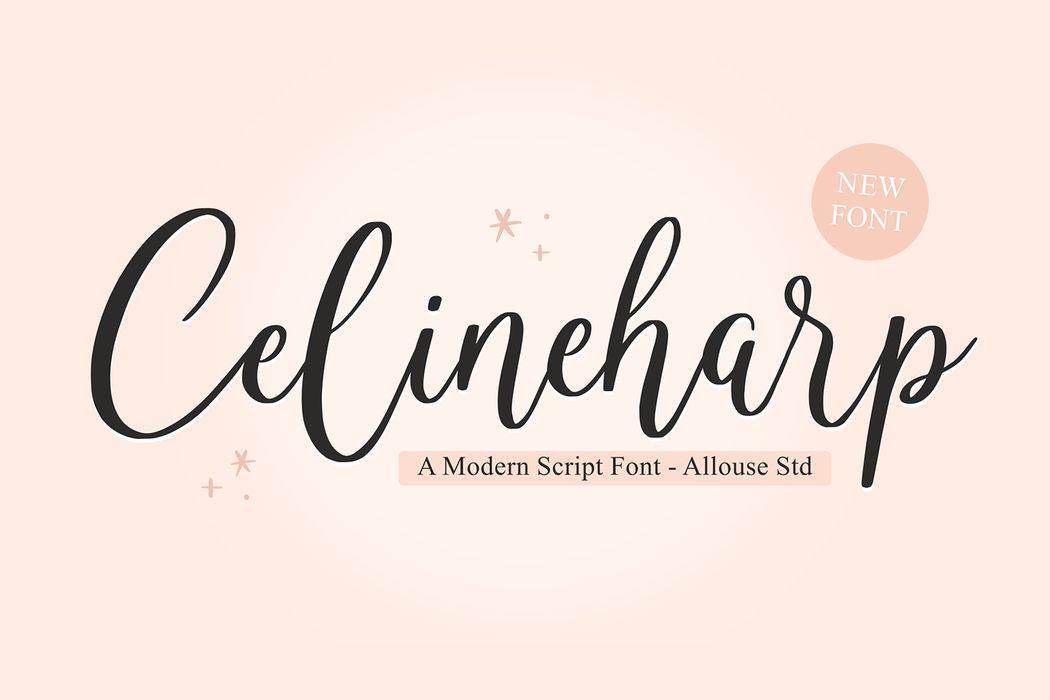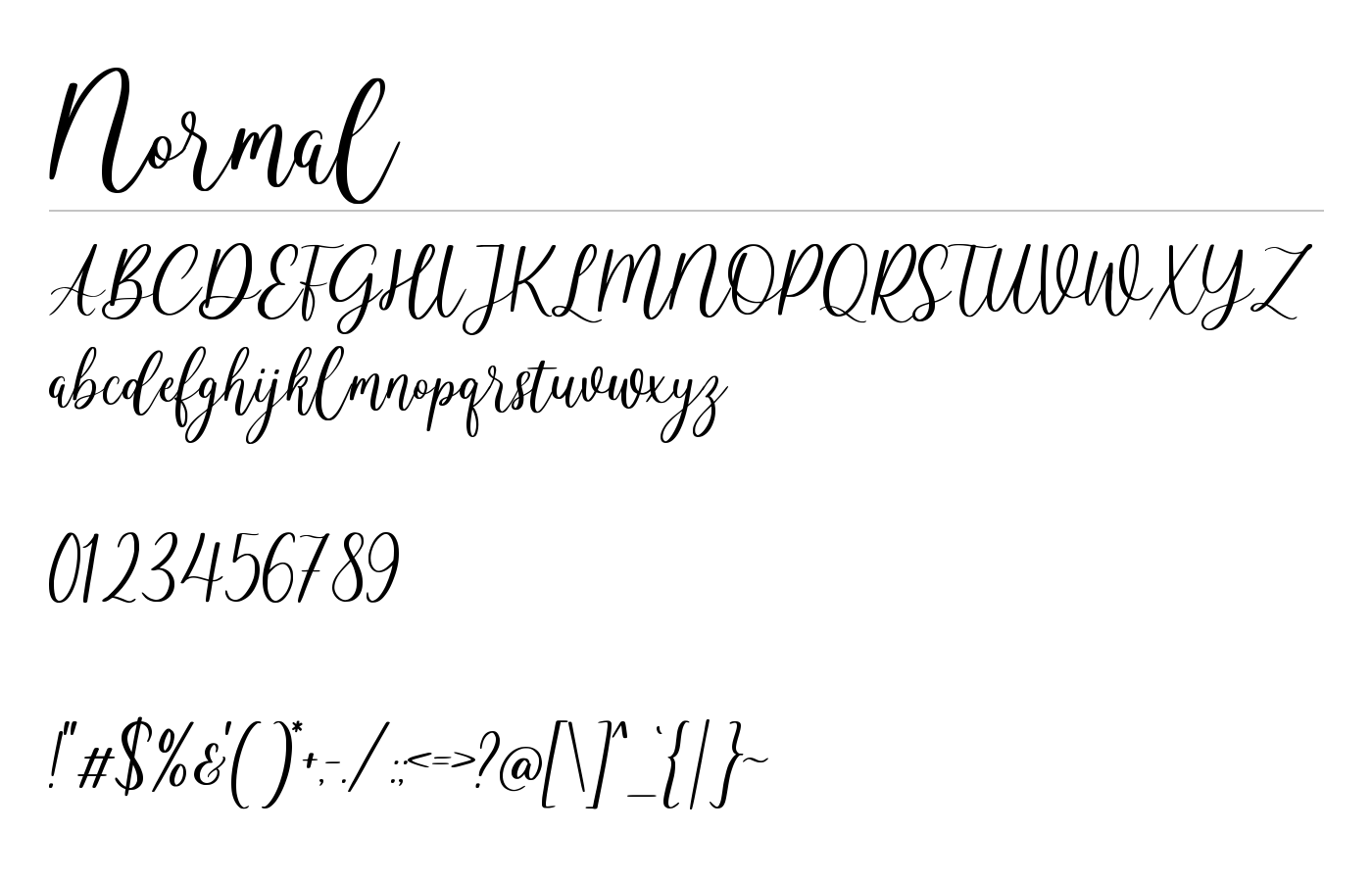
Celineharp is a graceful script font with elegant, flowing lines and a delicate, hand-lettered feel. Its slender strokes and high contrast between thick and thin elements give it a sophisticated and stylish personality, ideal for adding a touch of refinement to invitations, branding, and editorial designs. This font works beautifully in contexts where a chic, personal, and artistic vibe is desired, especially for fashion, wedding, and luxury projects.
Celineharp Font
About Celineharp Font